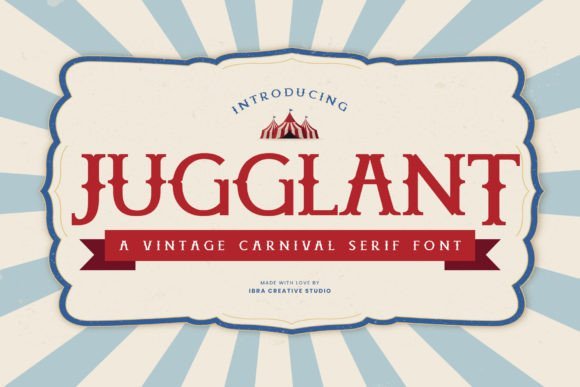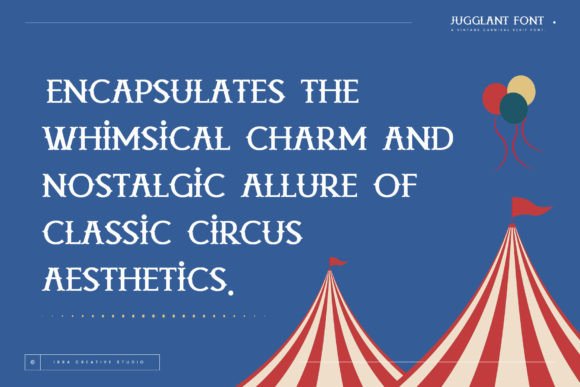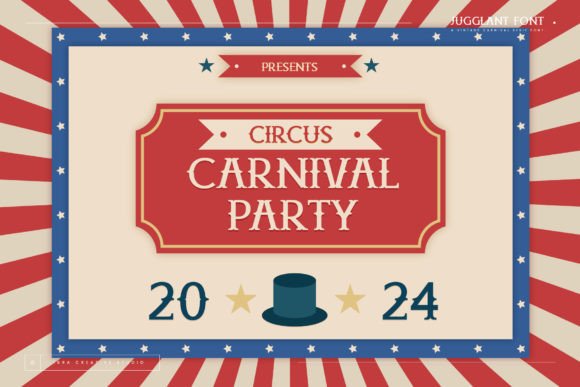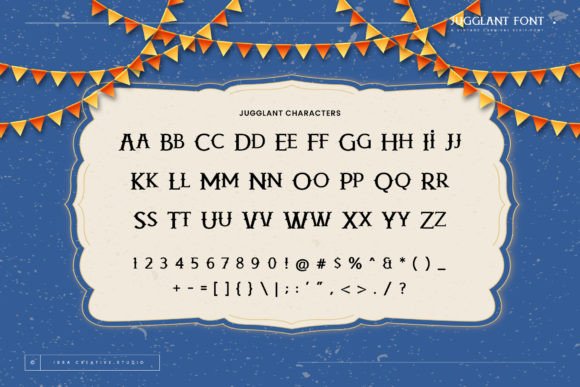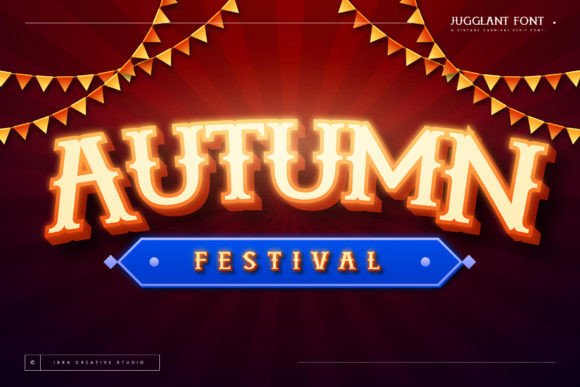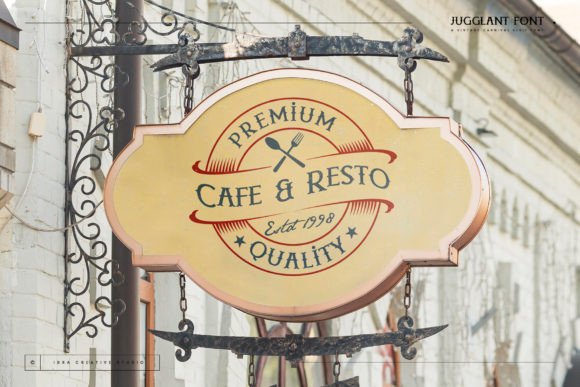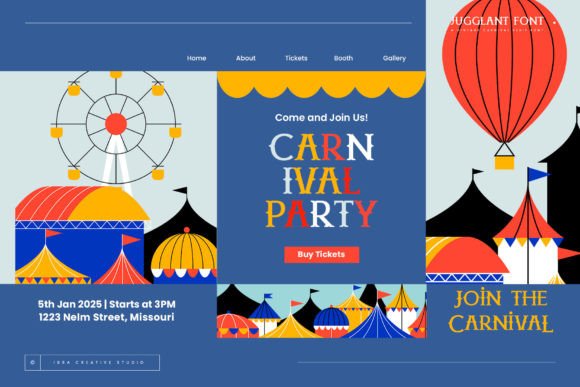
Step Right Up to the Jugglant Font
Have you ever stumbled upon a vintage carnival poster, and the whimsical charm of the font instantly transported you to a world of joyous celebration? That’s exactly the magic of Jugglant, a vintage carnival serif font that embodies the essence of classic circus aesthetics. Whether you’re designing a carnival-themed poster or looking to add a touch of nostalgia to your brand’s visual identity, Jugglant Font is the perfect choice.
As a designer, you understand the importance of selecting a font that resonates with your audience and adds a unique character to your work. Jugglant Font offers just that – a distinctive blend of playful yet meticulously crafted letterforms that evoke the precision of a masterful juggler’s rhythm. With its warm and inviting curves, Jugglant Font is an invaluable asset for designers seeking to create visually stunning projects that capture the essence of the carnival spirit.
- Unique Characteristics: The font features a unique blend of circular and geometric shapes, creating a visually striking and dynamic design.
Jugglant Font Review
I recently had the chance to work with Jugglant Font, and I must say it’s a unique and interesting font. Here are my thoughts on its strengths and weaknesses:
- Unique Character**: Jugglant Font has a distinct and quirky feel to it, making it perfect for projects that require a touch of whimsy.
- Highly Legible**: Despite its playful nature, Jugglant Font is surprisingly easy to read, even at smaller font sizes.
- Good for Titles**: The font’s bold and eye-catching qualities make it well-suited for use in headings and titles.
- May Not Suit All Projects**: Jugglant Font’s quirky nature may not be suitable for more formal or traditional projects.
- Requires Careful Use**: The font’s unique character may be lost or misinterpreted if not used thoughtfully and intentionally.
- Not Ideal for Body Text**: While legible, Jugglant Font may not be the best choice for large blocks of body text.
Jugglant Font is a fun and creative font that can add a touch of personality to a project. While it may not be suitable for every project, it’s a great choice when you need something unique and eye-catching. Just be sure to use it thoughtfully and intentionally to get the best results.
Getting the Most Out of Jugglant Font
For best results, use Jugglant Font in combination with bold or italic text to create emphasis.
Use it sparingly to avoid overwhelming the design.
Experiment with different font sizes and styles to achieve the desired effect.
Jugglant Font is ideal for:
– Creating bold, eye-catching headlines.
– Adding a touch of sophistication to your designs.
– Creating a unique and memorable brand identity.